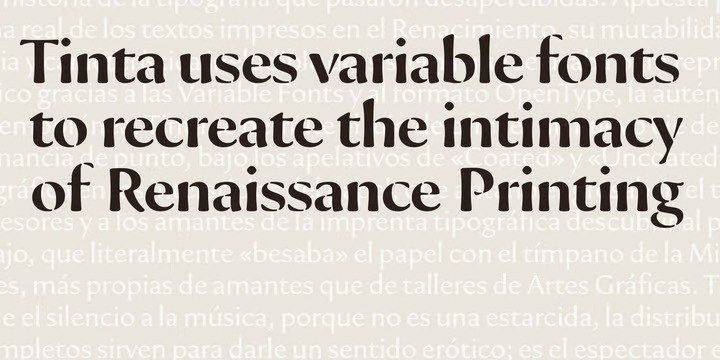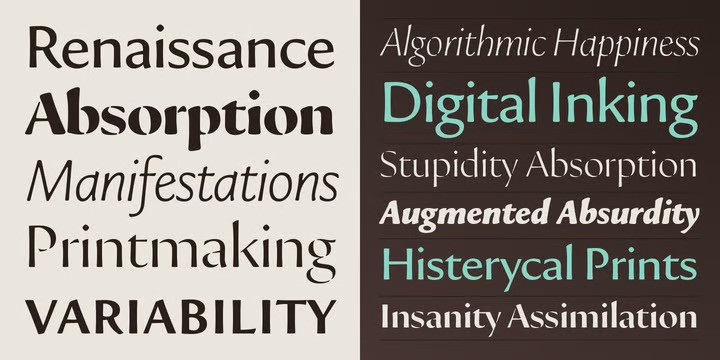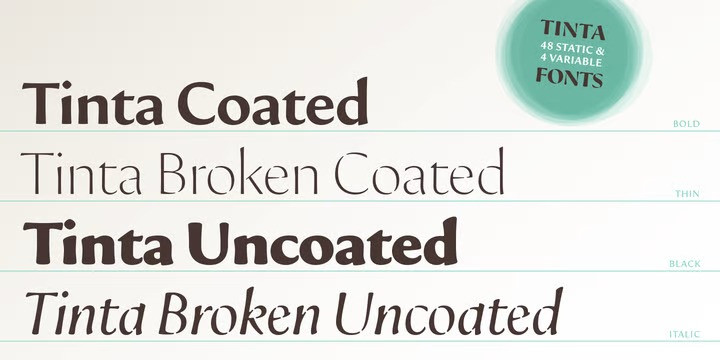
Tinta Broken Uncoated Font
The Tinta typeface is a rebellion against sterility and cold perfection. In a time dominated by supersharp offset printing and screen typography, Tipografies embarks on a search of lost warmth. The goal is to recreate the mood of Renaissance printmaking. Tinta utilizes variable font technology to bring back the vulnerable quality of letterforms.
Tinta Broken, on the other hand, shows what happens when too little force is applied, or letters are underinked. Its glyphs are fragmentary – the marks of a cursory, unfinished liaison. Thin strokes get thinner, exposing the diagonal contrast axis deduced from the broad-nib pen. Some parts even break. Despite these gaps, Tinta Broken is not a stencil design. It’s the lovesick type, craving for closer contact.